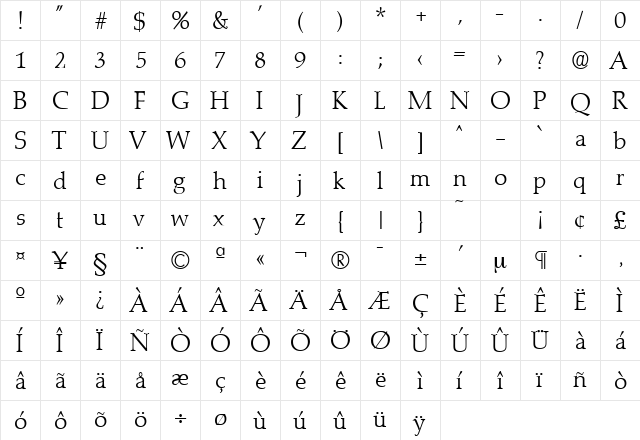
Marathon-Serial-Light Regular
Design Context for Marathon-Serial-Light Typeface
Marathon-Serial-Light offers clean, dependable letterforms without strong stylistic allegiance, making it a practical choice for designers who need flexibility. Its slender proportions lend an understated elegance to any composition.